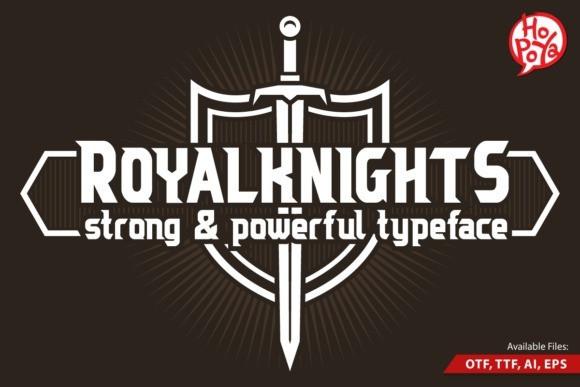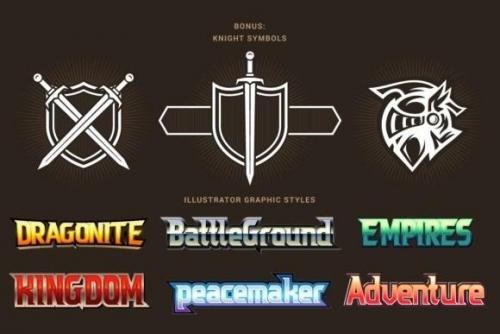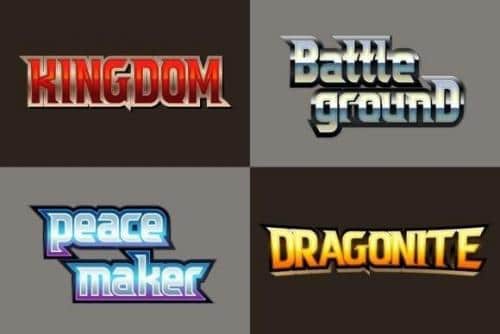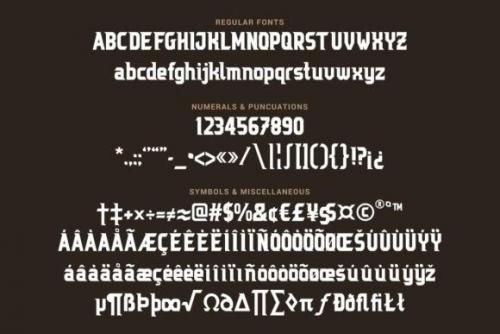
Royal Knights Font is a strong & powerful font with sharp corner style. Combination of thick, pierce edged, & intense are make it stand out more.
Suitable for Games/ Apps/ Movies/ Animations Titles, etc. The font includes uppercase and lowercase multilingual letters, numbers ,symbols and punctuation.